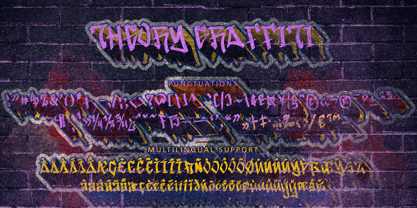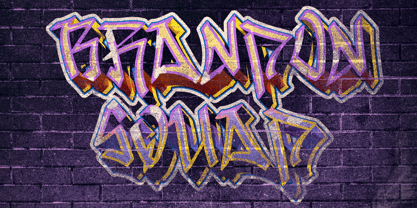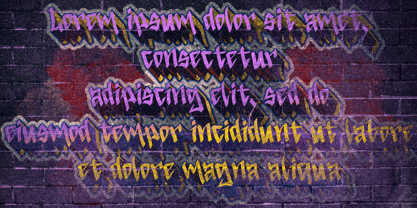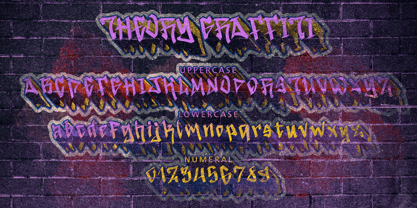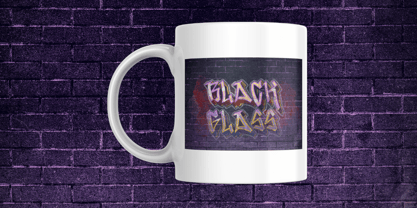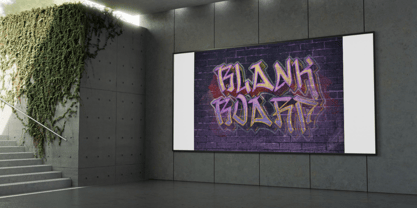
Theory Graffiti
by Yoga Letter
The Theory Graffiti Font Family was designed by Isroni Yoga Prasetya and published by Yoga Letter. Theory Graffiti contains 1 styles. More about this family
"Theory Graffiti" is a unique and elegant graffiti font. It comes with uppercase, lowercase, numbers, punctuation, and multilingual support. Perfect for business branding, stickers, wall art, urban art, tattoos, banners, branding, prints, logos, graffiti, winter, christmas, halloween, and more.
Designers: Isroni Yoga Prasetya
Foundry: Yoga Letter
Yoga Letter is independent Type Foundry based in Indonesia, Magelang. I'm a graphic designer who love lettering and creates some fonts with all of my depth love. I'm making creative & fresh fonts, high quality, highly recommended, and suitable for your business. I hope can be a contributor as a fonts author at MyFonts, and I will do the best to create amazing fonts.